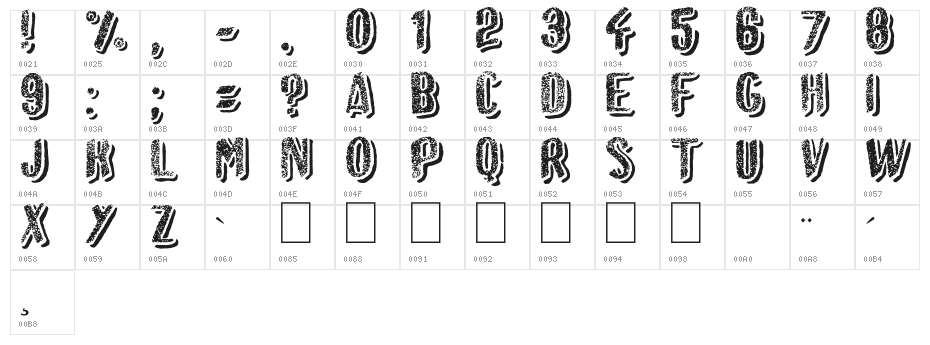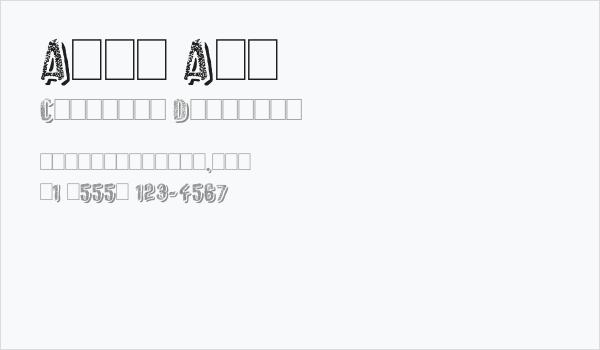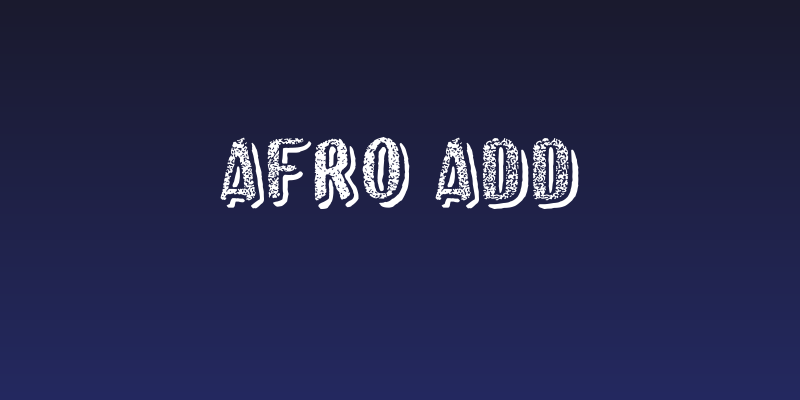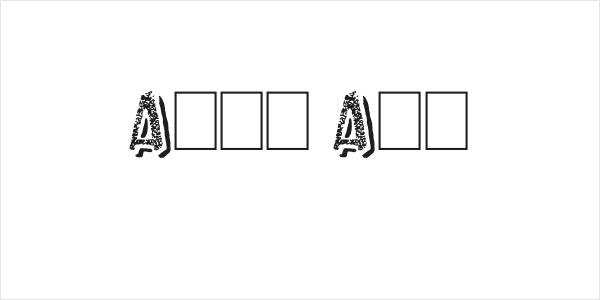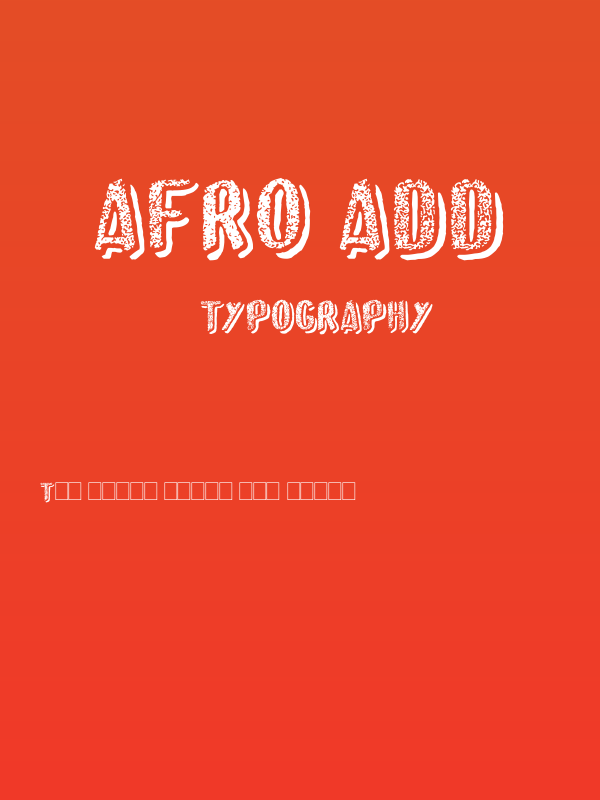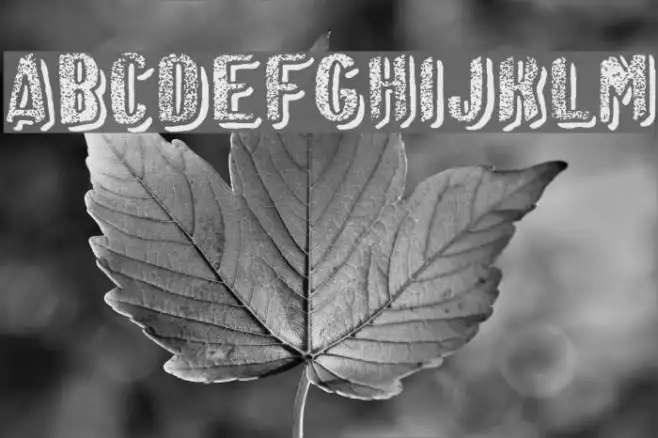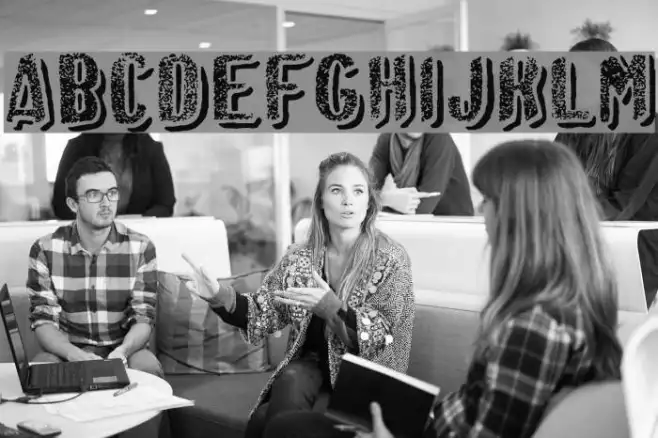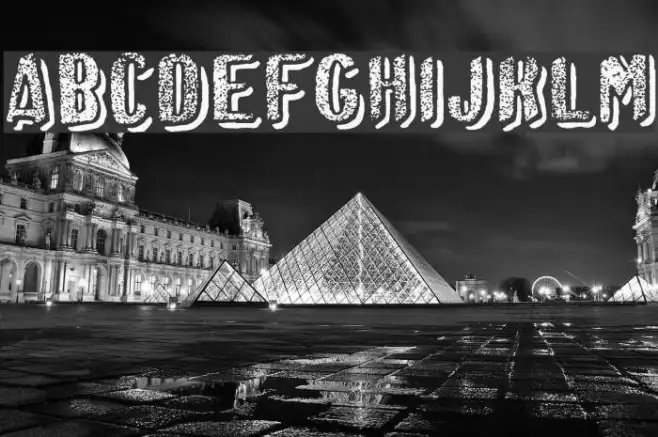
Afro Add Font
Afro Add Description
This font features a bold, textured style with a distressed appearance, giving it a rugged and vintage feel. The uppercase and lowercase letters are consistent in their rough, eroded texture, which adds a sense of depth and character. The numerals and special characters maintain this distressed look, ensuring a cohesive design throughout. The font's unique style makes it stand out, perfect for projects that require a bold statement or a retro aesthetic. Its decorative nature is ideal for creating eye-catching headlines, posters, and branding materials that need a touch of nostalgia or a gritty edge.
AFRO-ADD UPPERCASE
AFRO-ADD LOWERCASE
AFRO-ADD OTHER CHARS
| Proposed Projects | Ideal for posters, branding, headlines, and retro-themed designs. |